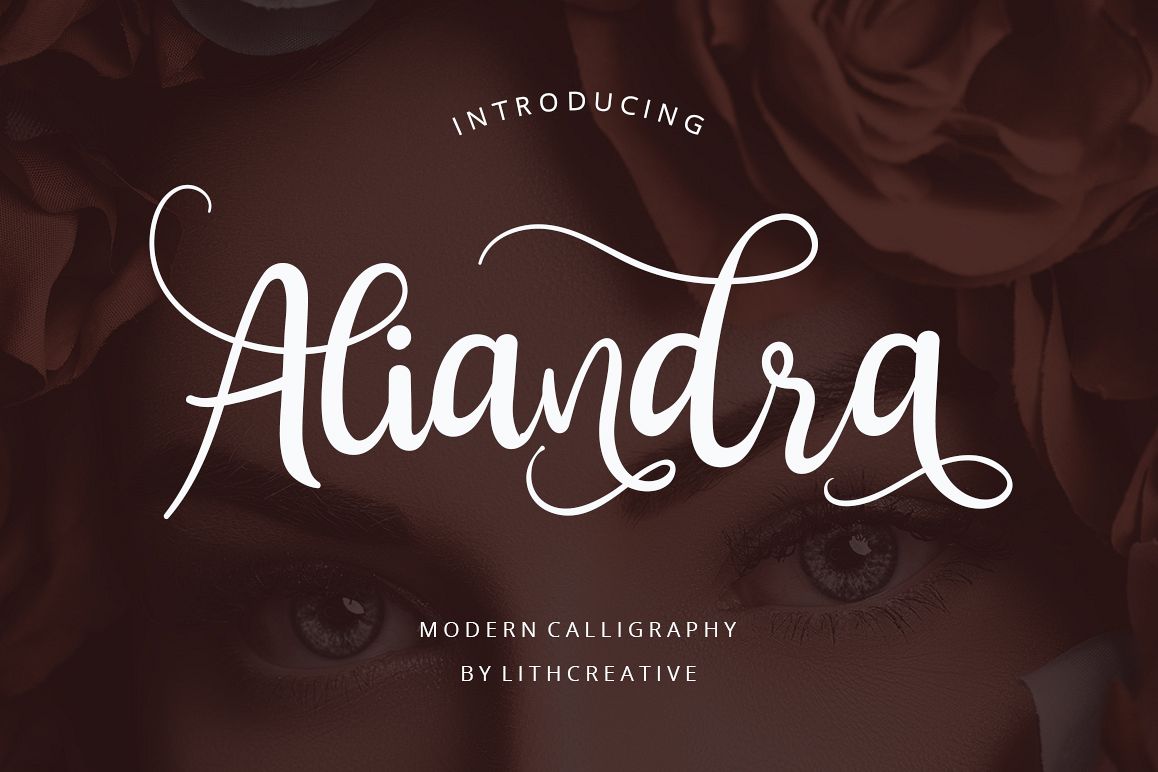
Aliandra
The Aliandra is a beautiful calligraphy font with an unique style. It includes elegant movements and is perfect for adding some grace to your designs.